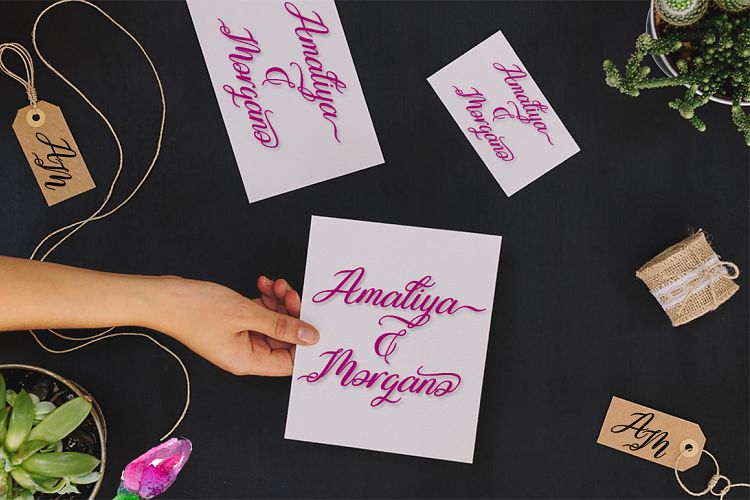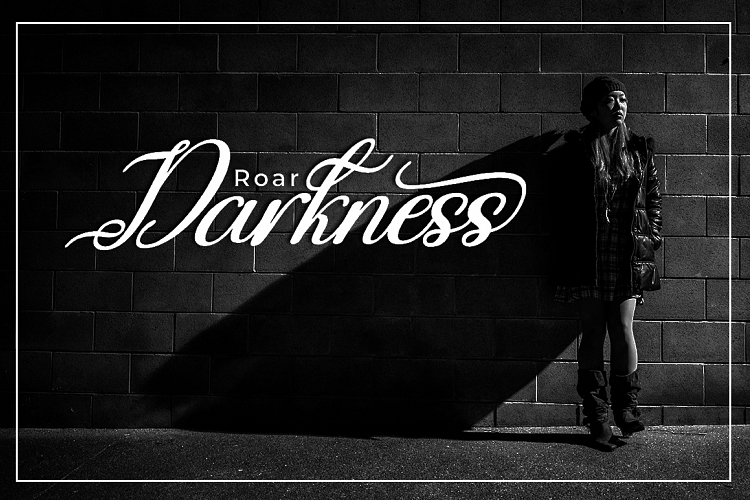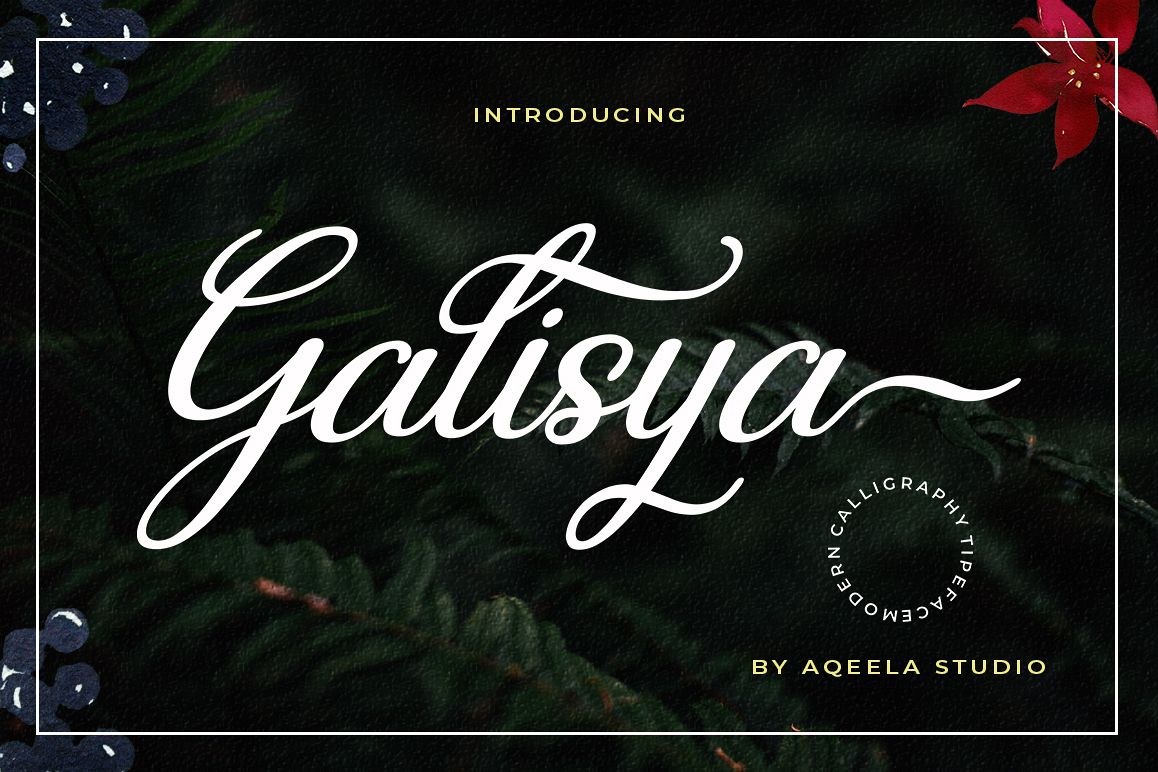
Galisya Script Font
Galisya is a modern calligraphy font, with characters dance along the baseline and elegant touch.  Opentype features with stylistic alternates, ligatures and multiple language support. Can be used for various purposes.such as logos, wedding invitation, heading, t-shirt, letterhead, signage, lable, news, posters, badges etc.